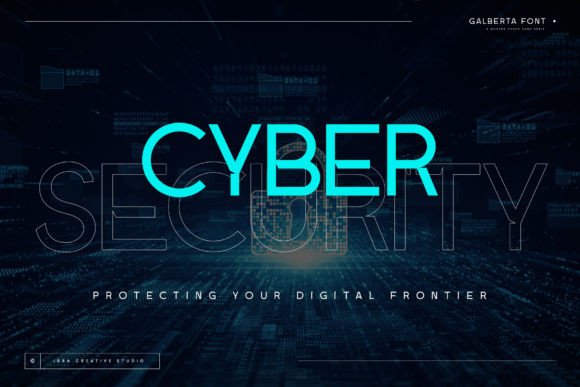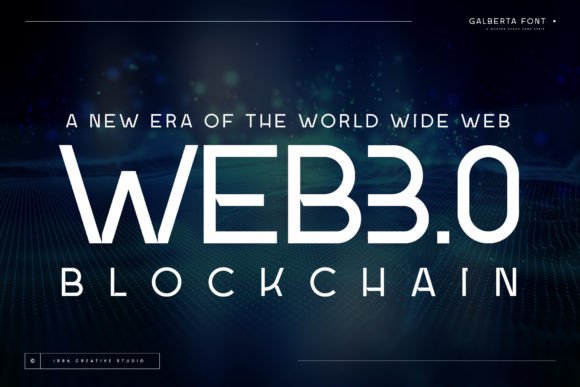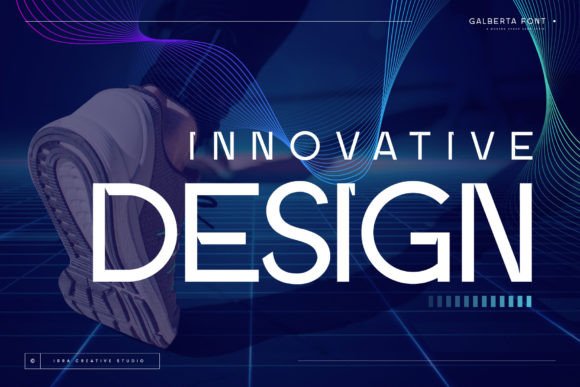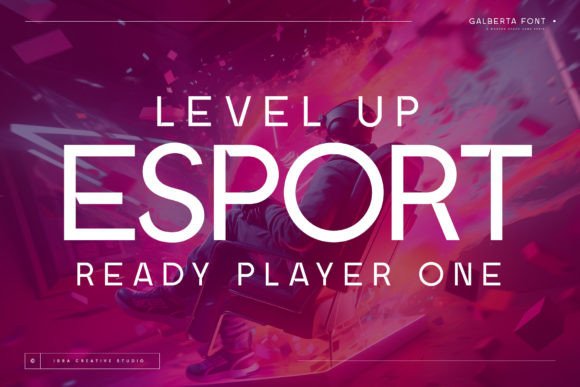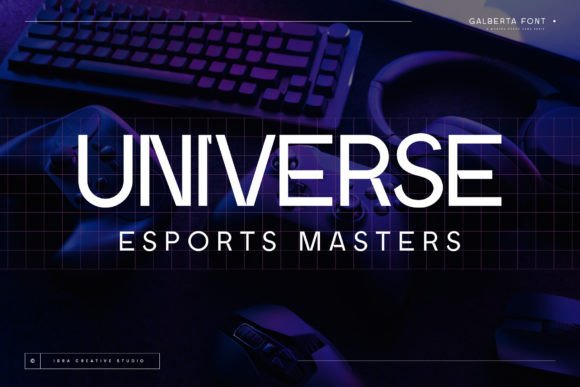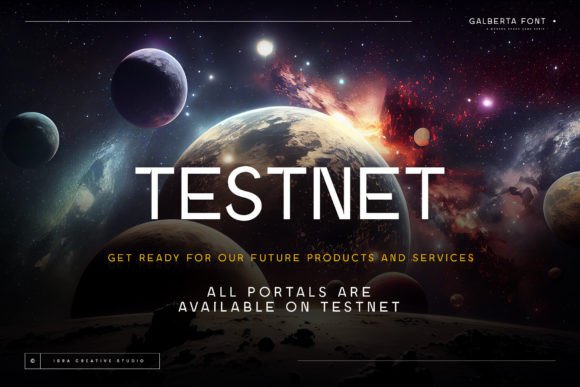
Introducing Galberta Font: The Epitome of Futuristic Typography
In the realm of typography, the Galberta font has emerged as a beacon of innovation, redefining the boundaries of modern design. This cutting-edge, futuristic font is a masterpiece of sleek and innovative design, crafted to embody the essence of tomorrow’s typography. With its geometric, sans-serif characters, Galberta seamlessly blends bold, crisp lines and subtle curves, exuding a sense of modernity and minimalism that captivates designers and crafters alike.
The Design Philosophy of Galberta
At the heart of Galberta’s design philosophy lies a distinct fusion of sharp angles and graceful arches. This harmonious blend of contrasting elements creates a visually captivating synergy that sets Galberta apart from traditional fonts. The font’s minimalist aesthetic is complemented by its bold, geometric lines, which imbue the text with a sense of confidence and sophistication. Whether used in digital media, print materials, or artistic projects, Galberta’s unique design ensures that the text stands out while maintaining an air of elegance and refinement.
Key Features of Galberta Font
- Geometric Sans-Serif Design: Galberta’s geometric, sans-serif design ensures that the text is easily readable, even at smaller font sizes. This feature makes it an ideal choice for digital media, where legibility is paramount.
- Bold and Crisp Lines: The font’s bold, crisp lines add a sense of confidence and sophistication to the text, making it perfect for headings, titles, and emphasis.
- Subtle Curves and Arches: Galberta’s subtle curves and arches introduce a touch of elegance and refinement, balancing out the boldness of the font’s lines.
- Minimalist Aesthetic: The font’s minimalist design ensures that the text remains clean and uncluttered, allowing the message to take center stage.
Applications of Galberta Font
Galberta’s versatility and innovative design make it an excellent choice for a wide range of applications, including:
- Digital Media: Galberta’s legibility and modern aesthetic make it perfect for digital media, such as websites, mobile apps, and social media graphics.
- Print Materials: The font’s bold, geometric lines and elegant curves make it an excellent choice for print materials, such as brochures, posters, and business cards.
- Artistic Projects: Galberta’s unique design and versatility make it an ideal choice for artistic projects, such as typography art, illustrations, and graphic designs.
Why Designers and Crafters Love Galberta
Designers and crafters love Galberta for its innovative design, versatility, and legibility. The font’s unique blend of bold lines and subtle curves creates a visually captivating harmony that sets it apart from traditional fonts. Additionally, Galberta’s minimalist aesthetic ensures that the text remains clean and uncluttered, allowing designers to focus on the message and visual impact.
In conclusion, the Galberta font is a cutting-edge, futuristic font that embodies the essence of tomorrow’s typography. Its innovative design, versatility, and legibility make it an excellent choice for designers and crafters looking to add a touch of modernity and sophistication to their projects. With Galberta, designers can create visually stunning text that captivates audiences and leaves a lasting impression.